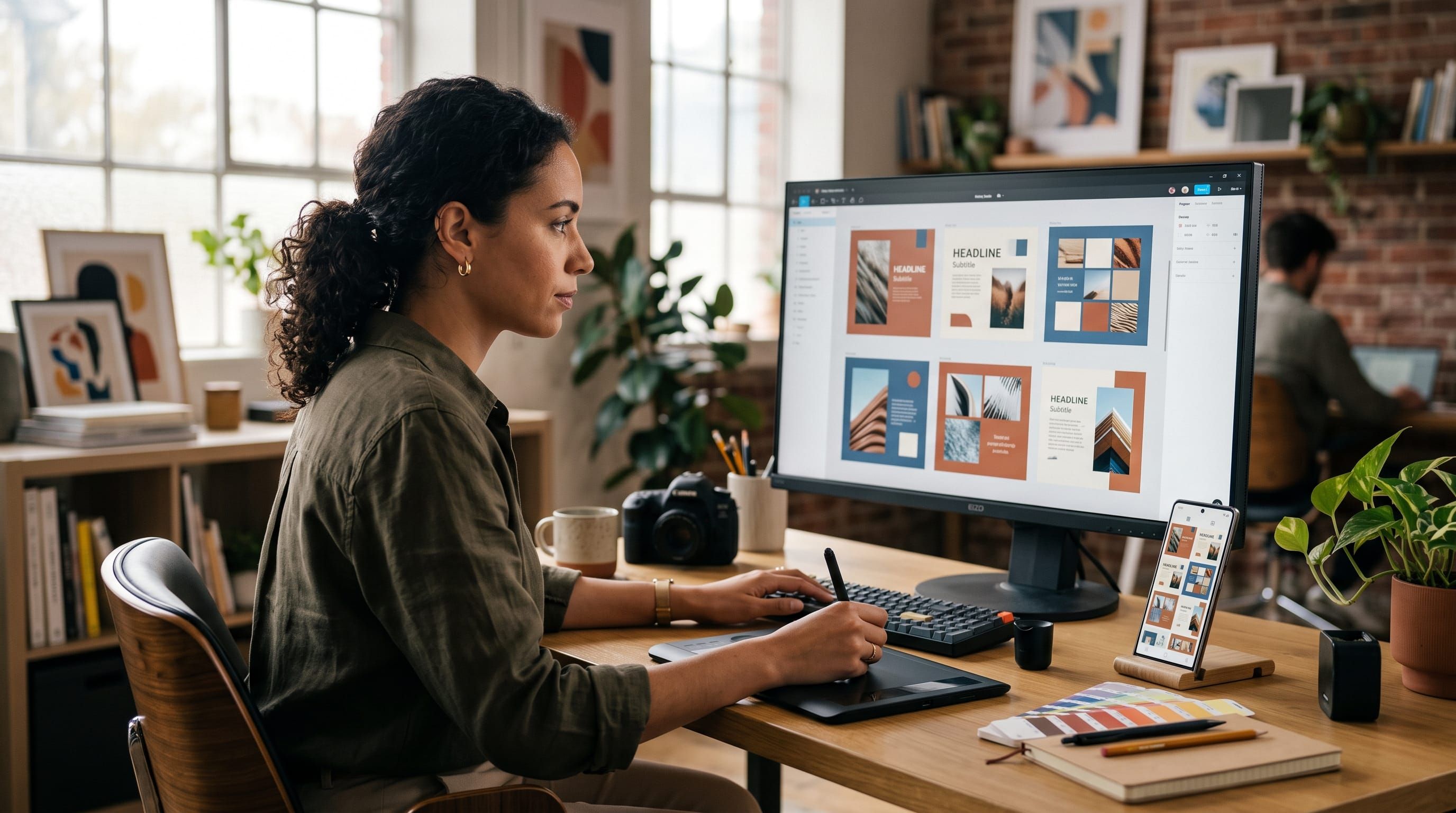
How to Create Social Media Graphics That Look Professional
Social media graphics can make the difference between content that disappears in a crowded feed and content that immediately attracts attention. Whether you create Instagram posts, Pinterest graphics, Facebook promotions, LinkedIn visuals, or content for another platform, professional-looking design depends on much more than adding attractive colors and trendy fonts. Strong graphics communicate a clear message through hierarchy, typography, imagery, spacing, and consistent branding.
Fortunately, you do not need to be an experienced graphic designer to improve your content.
By following a repeatable design system, creators can make polished visuals faster while maintaining a recognizable brand across different platforms.
This guide explains how to create social media graphics that look professional, including practical techniques for layouts, typography, colors, images, templates, visual consistency, and common design mistakes to avoid.
Start Social Media Graphics With One Clear Message
Every successful design starts with a purpose.
Before selecting colors or images, determine what the graphic should communicate.
Ask:
• What is the main message?
• Who is the audience?
• What should viewers notice first?
• What should they do afterward?
For example, a graphic might promote:
• A blog post
• A product launch
• A quote
• A discount
• A tutorial
• An event
• A new video
Trying to communicate several unrelated ideas in one design usually produces clutter.
Instead, define one main message.
For example:
“Learn five ways to improve your logo.”
This message immediately gives the design direction.
The number and main benefit can become the focal point while supporting information remains secondary.
Build Strong Visual Hierarchy in Social Media Graphics
Visual hierarchy controls the order in which people see information.
A simple hierarchy might be:
• Main headline
• Supporting image
• Secondary text
• Brand name
• Call to action
The most important element should normally have the greatest visual weight.
You can create hierarchy using:
• Size
• Color
• Position
• Font weight
• Contrast
• White space
For example:
5 LOGO DESIGN MISTAKES
could appear large and bold.
Below it:
Every beginner should avoid
could appear smaller.
This immediately establishes what viewers should read first.
Professional social media graphics rarely give every element equal visual importance.
Keep Social Media Headlines Short
Social media users often scroll quickly.
Your design may receive only a second or two of attention.
Therefore, headlines should be easy to understand immediately.
Instead of:
Discover These Important Tips That Can Help You Improve Your Social Media Marketing
try:
7 Social Media Tips
Short headlines create stronger compositions because designers can use larger typography.
Useful headline structures include:
• 5 Ways to…
• How to…
• Best Tools for…
• Avoid These…
• Design Better…
• Quick Guide to…
• Before You…
• Beginner Guide
Whenever possible, keep visual headlines concise and move additional information into the caption.
Use a Grid for Professional Social Media Graphics
A grid creates order.
You do not need a complicated professional grid system to improve your designs.
Start with simple alignment.
For example:
• Top: Category label
• Middle: Main headline
• Bottom: Brand or CTA
Another option:
• Left: Text
• Right: Image
Or:
• Top half: Photography
• Bottom half: Typography
The exact structure can change, but elements should feel intentionally positioned.
Align text blocks to common edges whenever possible.
Random placement is one of the easiest ways to make otherwise attractive social media graphics feel amateur.
Use Enough White Space
White space refers to empty space around design elements.
It does not need to be white.
A black, blue, beige, or photographic background can contain visual breathing room.
White space helps:
• Improve readability
• Separate information
• Create hierarchy
• Emphasize important elements
• Make graphics feel premium
Beginners often try to fill every available area.
Instead, remove unnecessary elements.
A graphic containing one headline, one image, and one small logo can often look more professional than a design containing ten decorative elements.
Choose a Limited Color Palette
Color consistency makes social media graphics more recognizable.
Instead of choosing new colors for every post, develop a small brand palette.